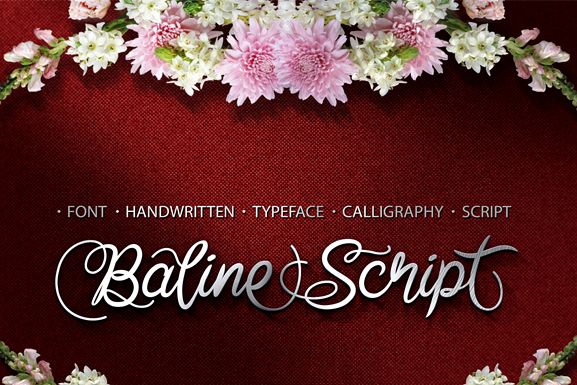
Baline Script
Baline script font is italic spontaneous
decoration typeface clean looks hand written with artistic brush.
Baline script font comes with alternate upper and lowercase character, and supports international languages.
This
font have many glyphs alternative variation. 3 capital variation letters
and 5 small variation letters.